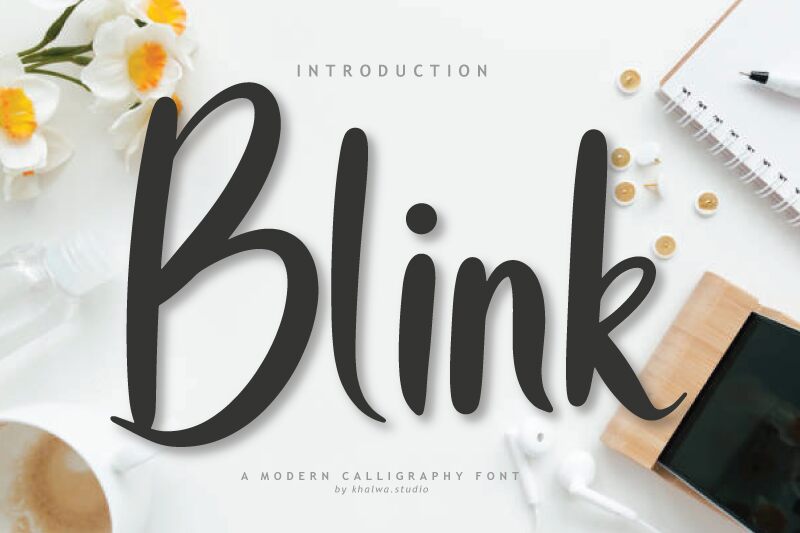
Blink
Blink font by Gly Fais is a free handwritten font that captures the energy of naturally brushed handwriting. It hectic, energetic, cool, daring, sometimes all caps letters are designed with modern aesthetics in mind. The author was initially inspired by graffiti stylization and calligraphy writing; Blink marries both styles together but without the readability reduction.
Incorporate it into logos, brand identity elements, product labels and packaging designs for beer or wine among others. Use it on posters and flyers for music events like rap concerts or DJ nights. Let Blink font grace your printed vast printed media from menus to chic magazine covers.